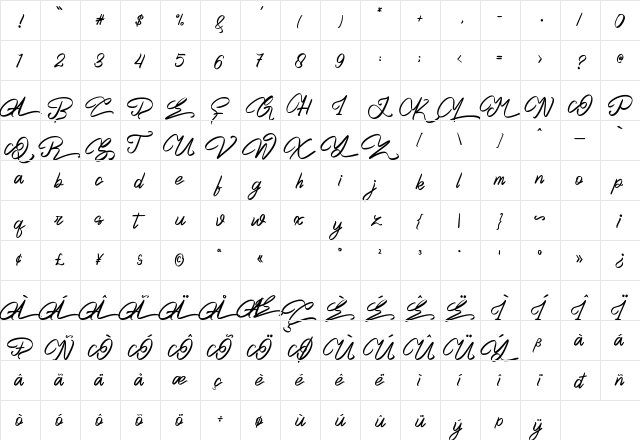
Eastblue Regular
| Foundry | Hans Co |
| Designer | Burhan Afif |
Design Context for Eastblue Typeface
Eastblue is a composed and adaptable typeface that performs quietly and consistently across a wide range of design contexts.